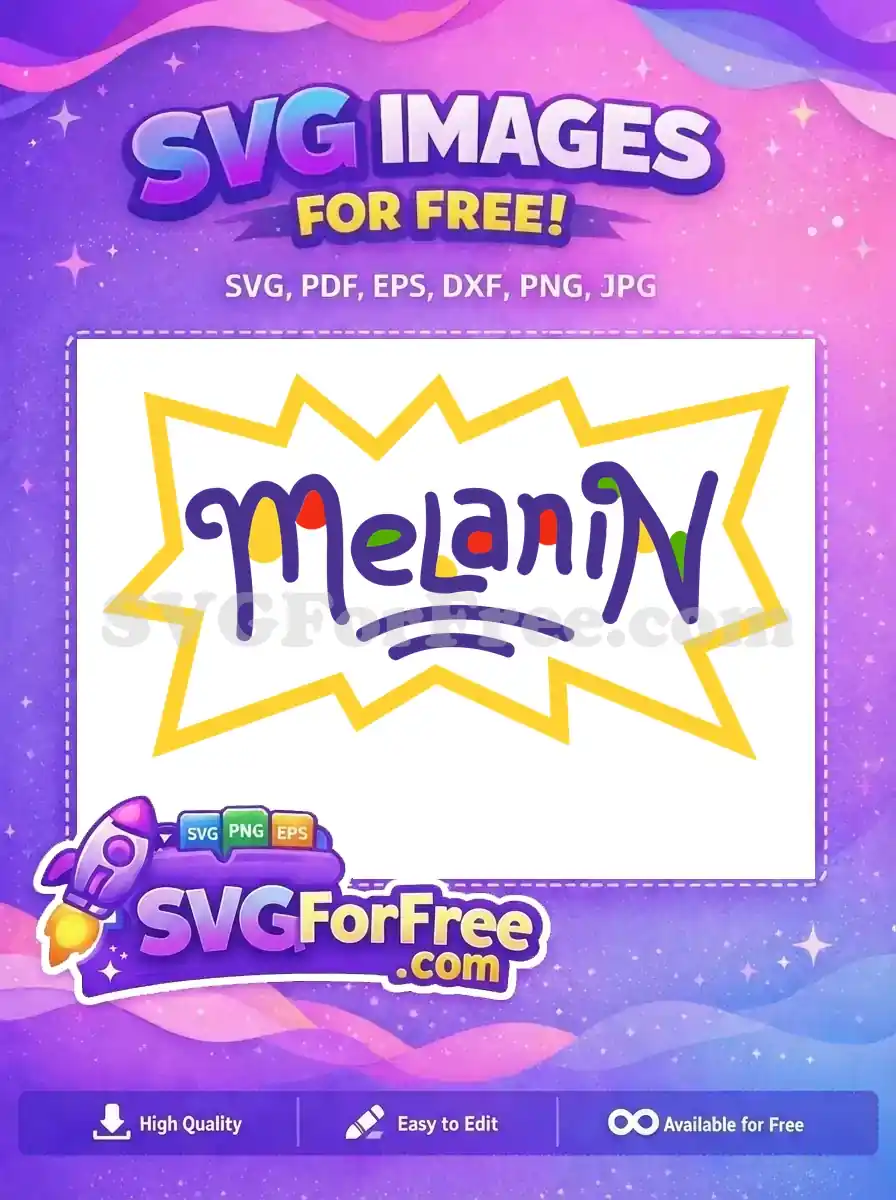
Free Rugrats Melanin Font Free Black History Month Pride Free SVG – Instant Download
Free Rugrats Melanin Font Free Black History Month Pride Free SVG